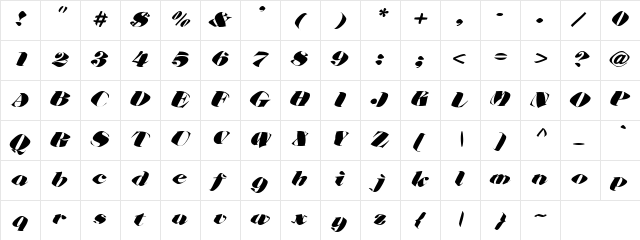
Fictive01 Regular Font Preview
Fictive01 Regular
Design Context for Fictive01 Typeface
Fictive01 is a composed and adaptable typeface that performs quietly and consistently across a wide range of design contexts.